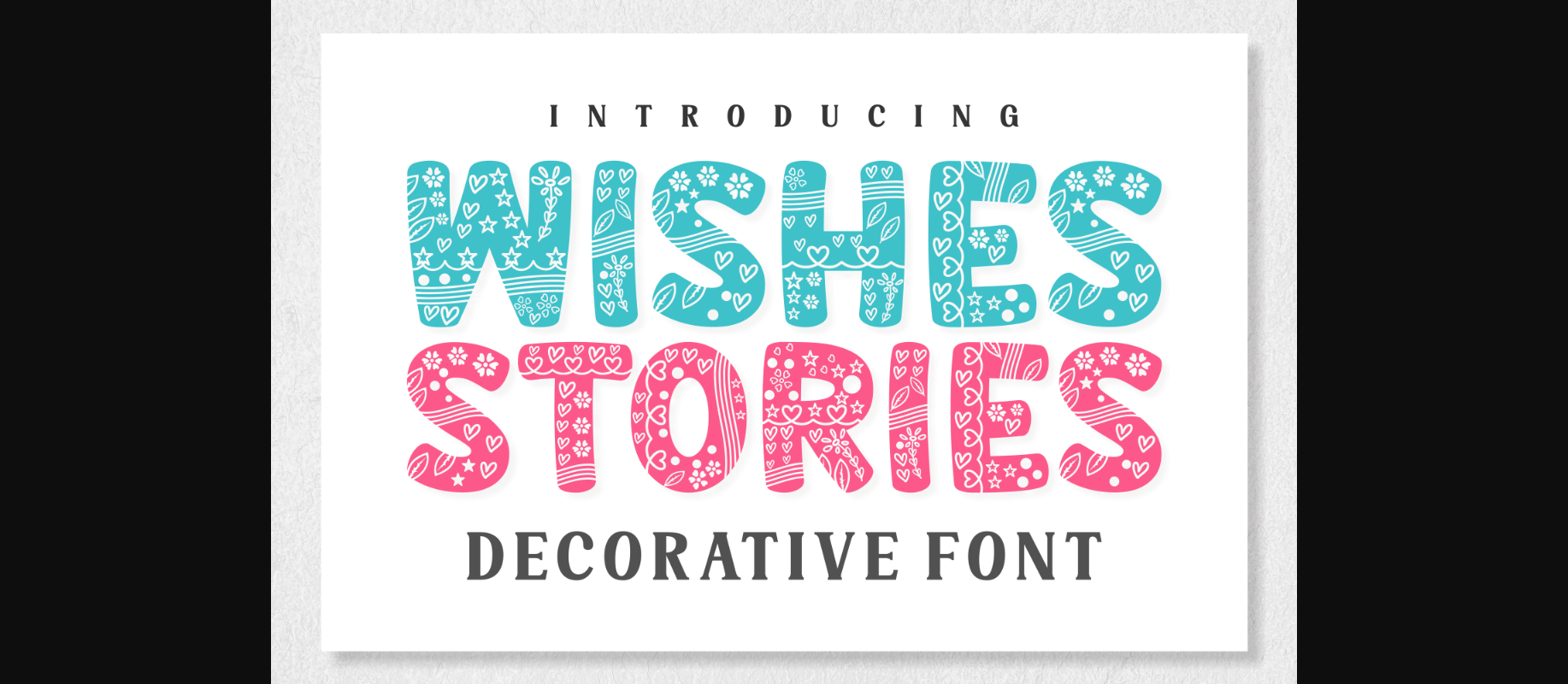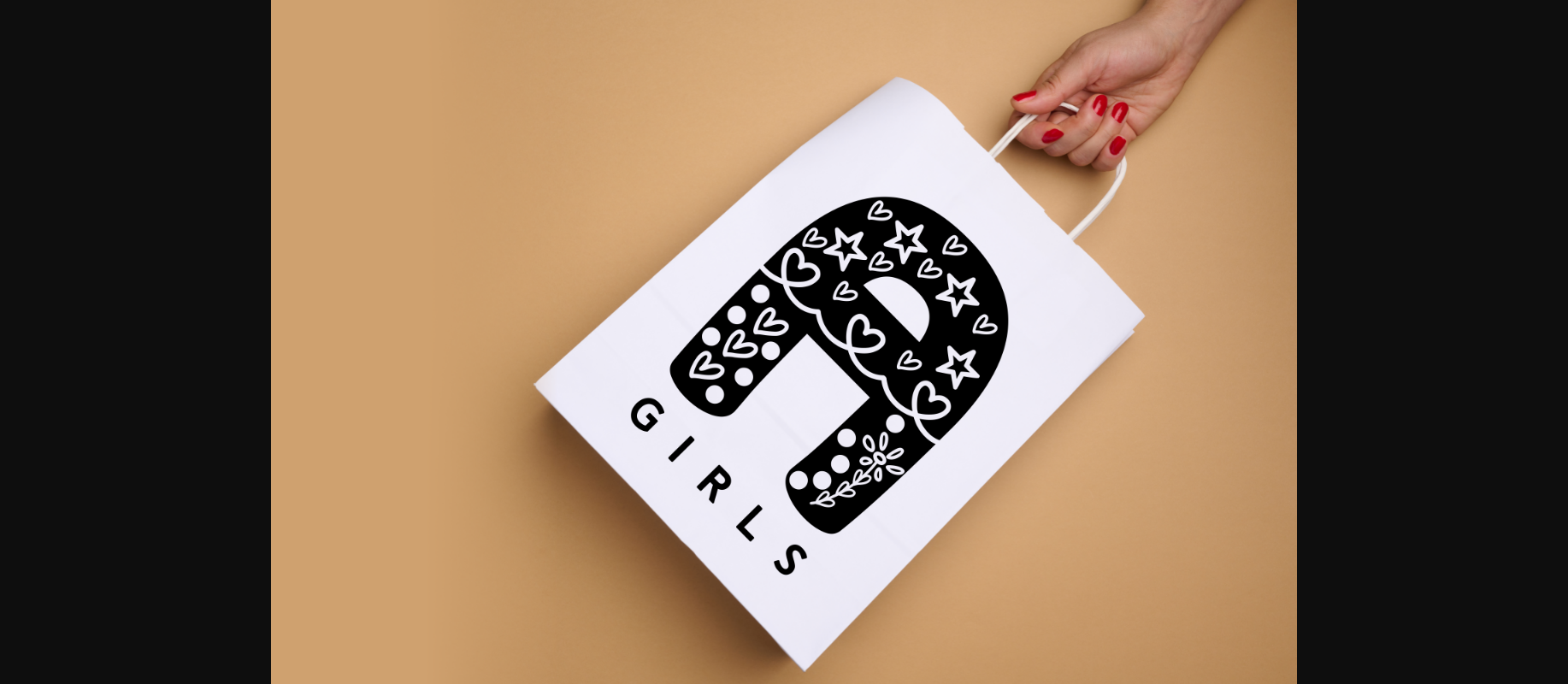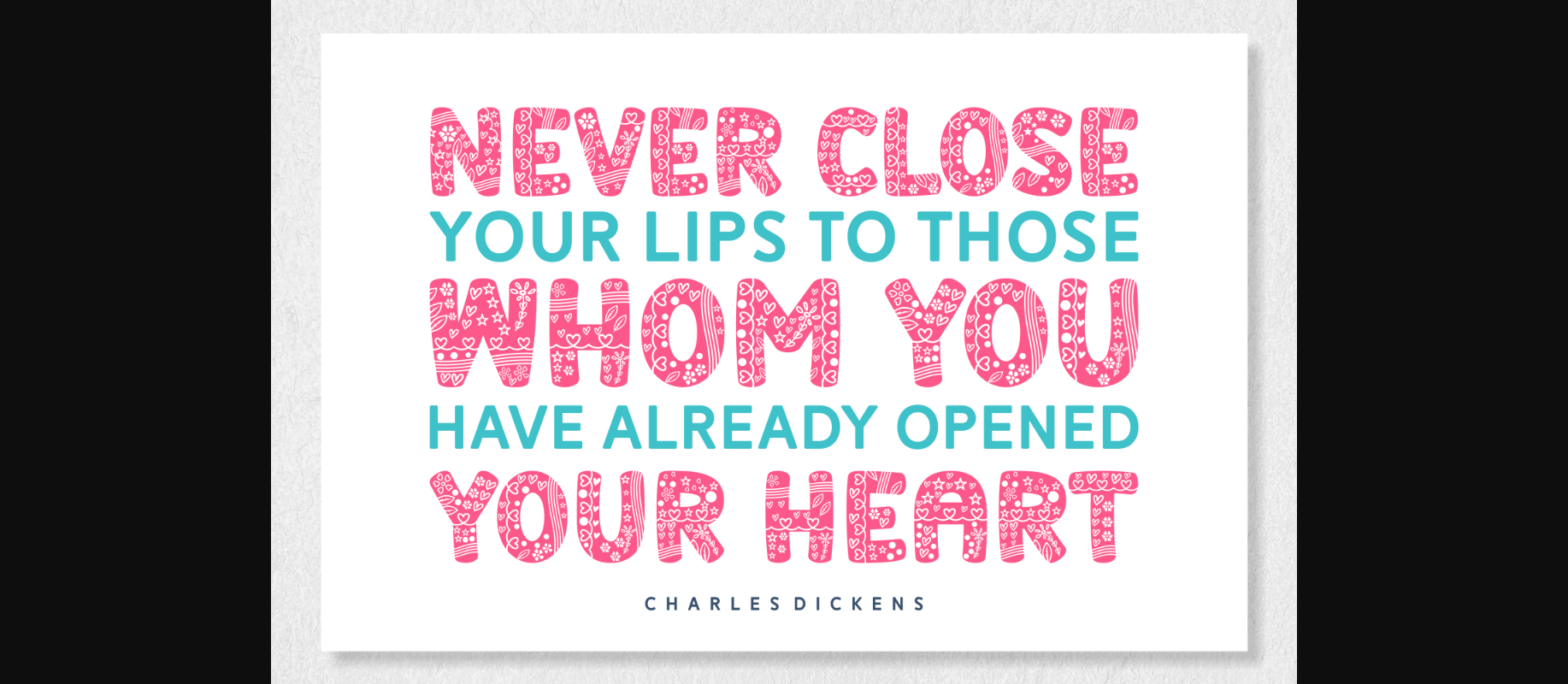
About Wishes Stories Font
Wishes Stories a lovely decorative font with everything nice inside the set of characters. You can see gorgeous hand-drawn cartoonish hearts, flowers, stars, and leaves. This creative and fun typeface is perfect for branding, logos, posters, birthday cards, wedding cards, covers, quotes, monogram designs, packaging, clothing, t-shirts, Mother’s day cards, etc.